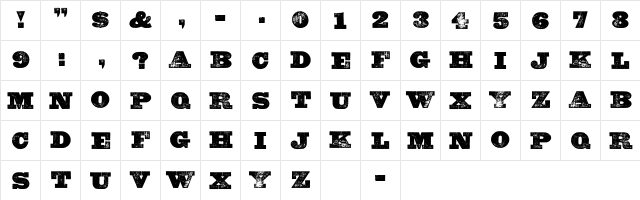
Gatlin Bold WF Regular
| Designer | Walden Font Co. |
Design Context for Gatlin Bold WF Typeface
Gatlin Bold WF is a composed and adaptable typeface that performs quietly and consistently across a wide range of design contexts. The heavy weight commands attention and anchors typographic hierarchies.